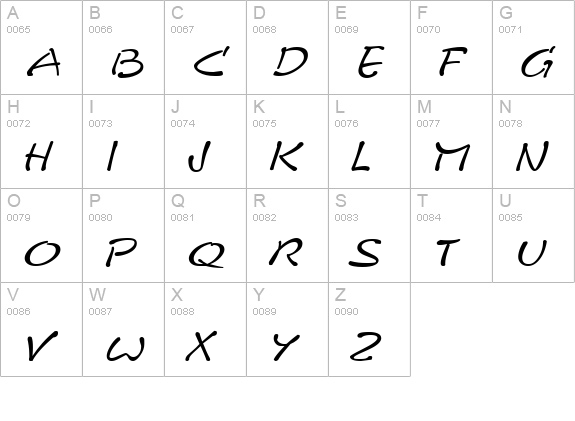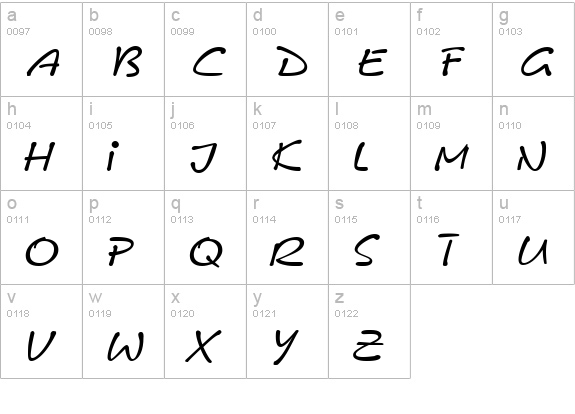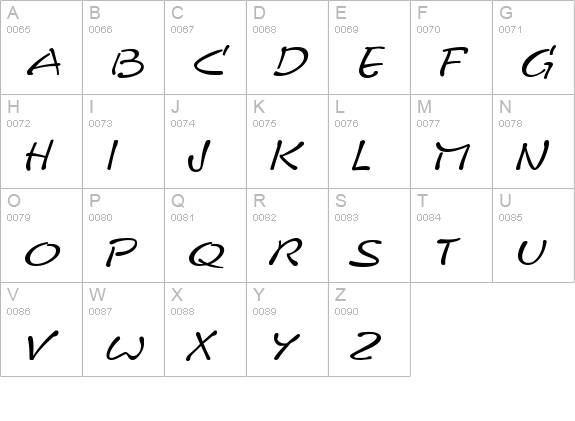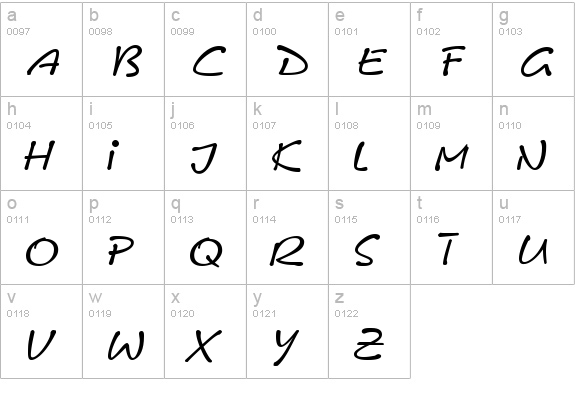
PyxidiumQuick Regular is the standard, neutral variant in the PyxidiumQuick typeface family \xE2\x80\x94 well suited to general body text, paragraphs, and standard typographic work.
PyxidiumQuick Regular font is a versatile and modern typeface that exudes elegance and sophistication. With its clean lines and stylish curves, this font is perfect for a wide range of design projects, from branding to editorial design. The sleek and professional look of PyxidiumQuick Regular font makes it a popular choice among designers and creatives looking to add a touch of class to their work. Best of all, PyxidiumQuick Regular font is completely free to download at FontsMarket.com. Whether you're working on a personal project or a client's design, this font is a fantastic choice for adding a touch of refinement and style. Download PyxidiumQuick Regular font today and elevate your designs with its timeless charm and sophistication.